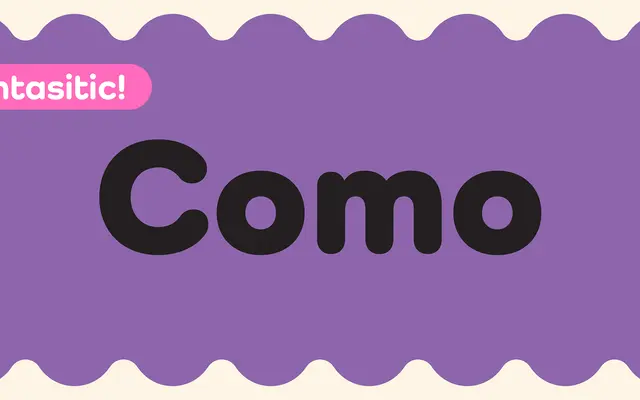
Como
A geometric rounded sans in eight weights by Ryoichi Tsunekawa, balancing neutral structure with softened terminals for broad usability.
Designed by Ryoichi Tsunekawa and published by Dharma Type, Como is a geometric sans-serif whose rounded terminals temper its otherwise neutral architecture. Eight weights from ExtraLight to Heavy give it range across digital interfaces and print materials, while a large x-height supports legibility at smaller sizes. Latin coverage extends across Western, Central and South Eastern European languages plus Afrikaans, with OpenType support for fractions and superior and inferior figures.
Built on a geometric foundation with rounded terminals, Como sits clearly in the geometric sans tradition, softened by its rounded stroke endings rather than strict circular geometry.